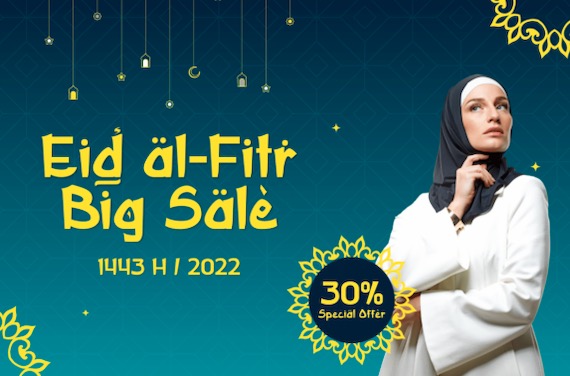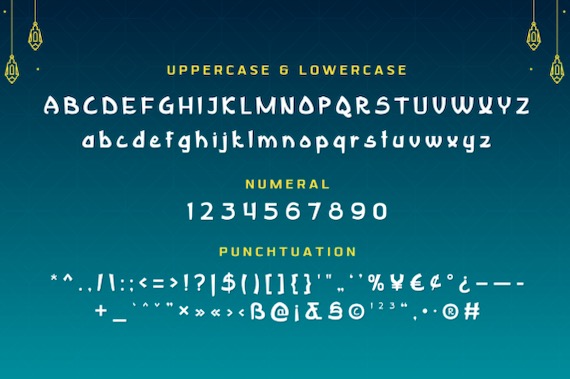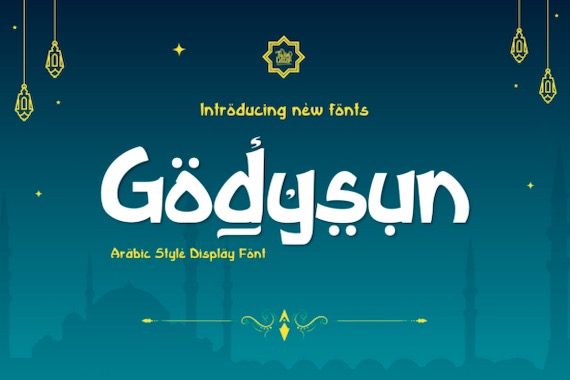
Introducing Godysun Font. With this display font, you can design easily perfect Arabic and Islamic decorative products. It was created and released by Twinletter. With this stylish font, you can create all kinds of themes, from elegant to modern, and get the same result as shown. To get a variety of styles into your projects, they come in both upper and lower case, as well as several Alternates. You will be able to easily create quality designs.
Godysun Display Font